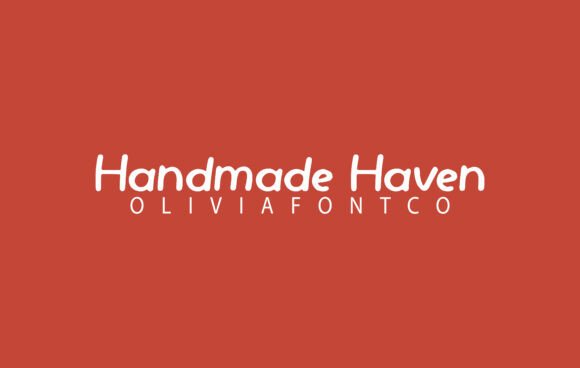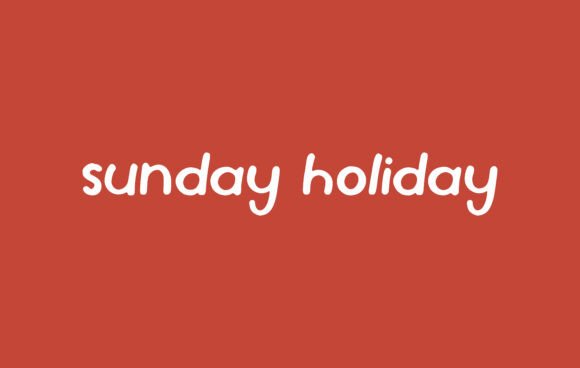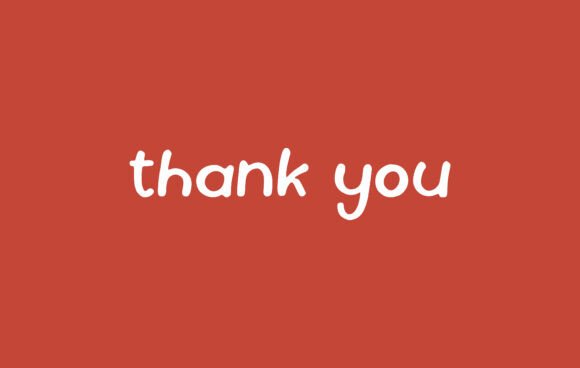
Handmade Haven Font
About the Handmade Haven Font
Let us introduce you to Handmade Haven Font, where timeless design meets modern craftsmanship. Handmade Haven font is an authentic handwritten font with a romantic touch. Expertly designed to be a true favorite, this font has the potential to take your creative ideas to the highest level
Handmade Haven’s romantic feel makes it ideal for projects requiring a touch of warmth and intimacy, such as wedding invitations, greeting cards, or branding for artisanal products. Its legibility shines in headlines and short text blocks, but it’s less suitable for extended body copy or UI elements where readability is paramount.
For a balanced aesthetic, pair Handmade Haven with a clean sans-serif like Open Sans for body text, creating a sophisticated contrast. Alternatively, a classic serif like Playfair Display adds a touch of timeless elegance. Avoid pairing it with other highly decorative scripts, which might create visual clutter.
The font’s overall personality is best described as charming and approachable, lending itself to brands focused on handcrafted goods, small businesses with a personal touch, or events that emphasize heartfelt connection.